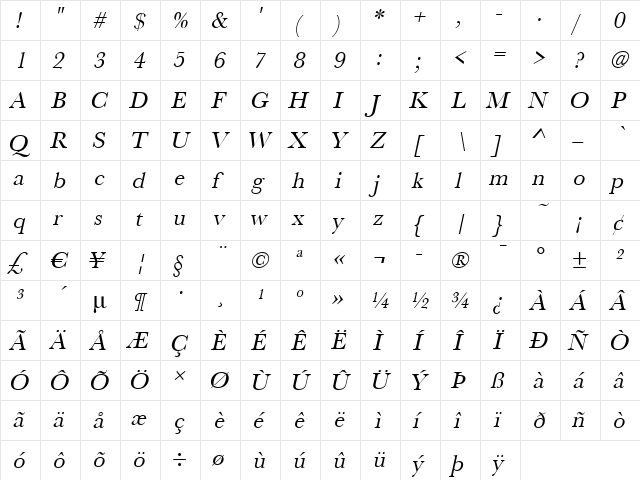
RoxanneBecker Italic
Design Context for RoxanneBecker Typeface
RoxanneBecker is a composed and adaptable typeface that performs quietly and consistently across a wide range of design contexts. Its italic angle brings a sense of urgency and motion to the letterforms.
Pro Tip: Try RoxanneBecker for annotation and caption copy alongside an upright companion — the contrast in angle creates a dynamic but ordered typographic system.